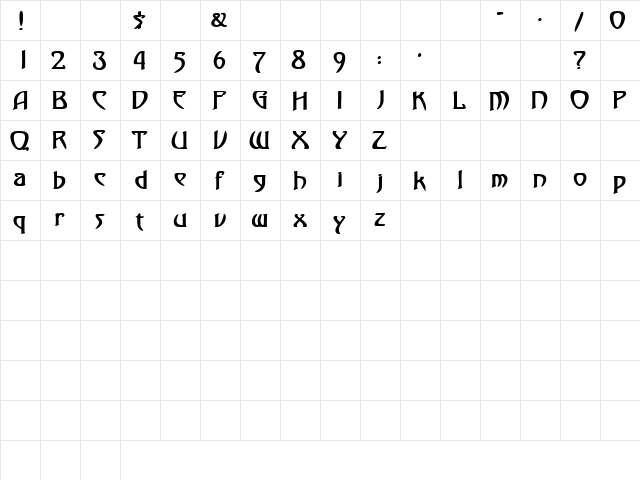
FezSSK Bold
Design Context for FezSSK Typeface
FezSSK is a composed and adaptable typeface that performs quietly and consistently across a wide range of design contexts. The heavy weight commands attention and anchors typographic hierarchies.